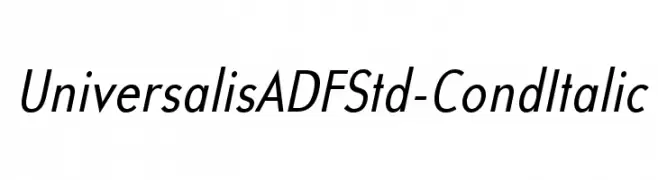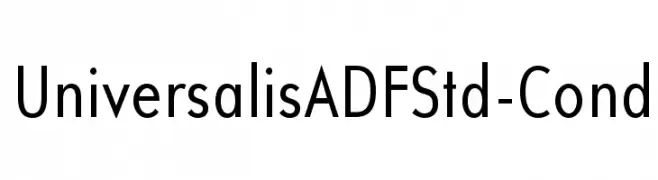
A bold, modern sans-serif font with clean lines and excellent readability.
A bold and italic font with a modern, dynamic style.
A sleek, modern condensed italic font with elegant slant and clean lines.
A modern, condensed sans-serif font with clean lines and excellent legibility.
A modern, geometric sans-serif font with excellent readability and balance.
A bold, italic, and condensed font with a modern and dynamic style.
A bold, modern font with clean lines and a strong presence.
A modern italic font with smooth curves and a dynamic appearance.
A bold, geometric font with a modern and assertive style.
A modern, oblique font with clean lines and a medium weight.